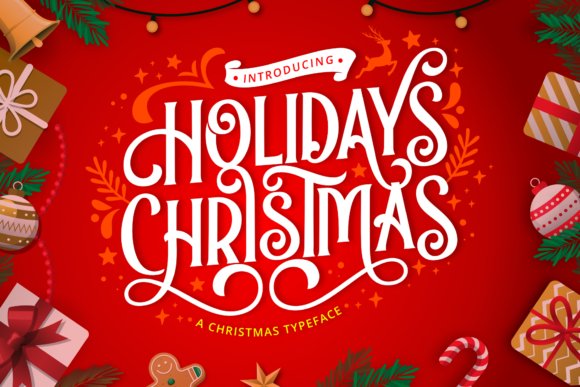
Introducing Holidays Christmas Font, a font that will make your designs come alive with a touch of festive elegance! Created by Holydie Studio, this display font is the perfect addition to any winter-themed project.
With its unique and captivating style, Holidays Christmas Font is the best font for CV design, ensuring that your resume stands out from the competition. Impress potential employers with a font that exudes class and sophistication, instantly setting you apart from the crowd.
This font is more than just a typographic choice; it's a statement. The elegant curves and delicate details of Holidays Christmas Font evoke feelings of joy, warmth, and nostalgia. From holiday cards to invitations, this font adds a touch of magic to any design, making it impossible to resist.
But Holidays Christmas Font is not limited to just CV design. Its versatility allows it to shine in various creative projects. Whether you're designing posters, banners, or even social media graphics, this font will capture attention and leave a lasting impression on your audience.
Elevate your winter break creations with Holidays Christmas Font. Its keyword-rich design not only adds visual appeal but also enhances the overall message of your work. Whether you're sharing holiday recipes, promoting festive events, or simply spreading seasonal cheer, this font will elevate your content and make it truly unforgettable.